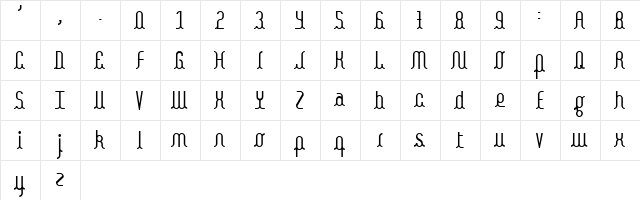
Kamalo Kamalo Font Preview
Kamalo Kamalo
Design Context for Kamalo Typeface
Kamalo is a composed and adaptable typeface that performs quietly and consistently across a wide range of design contexts.